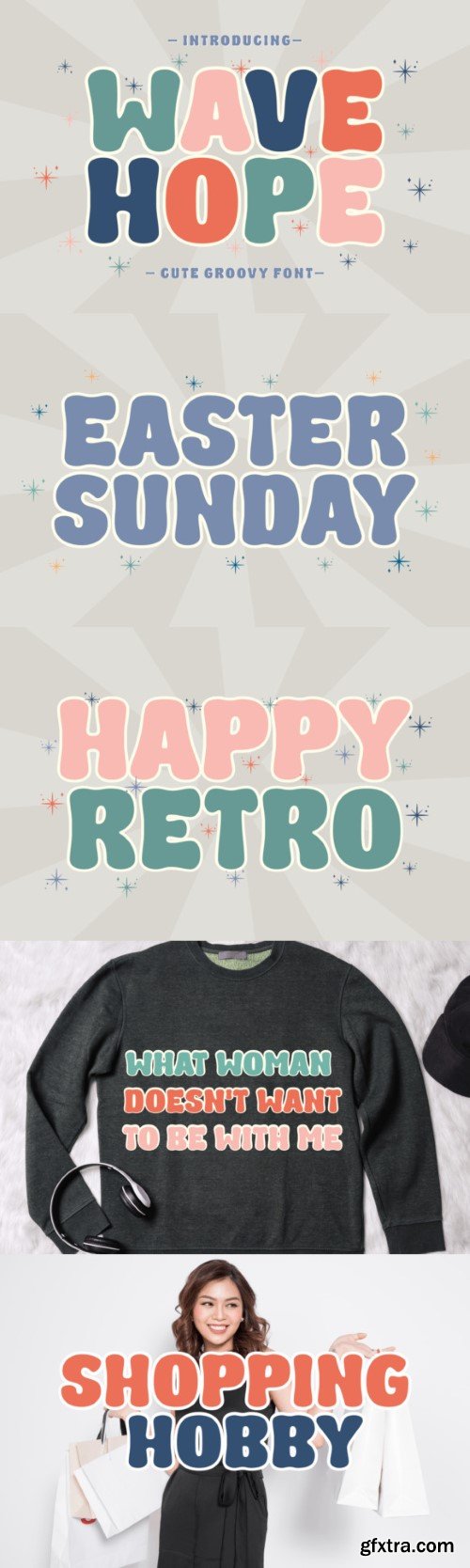
波Hope字体
We are proud to present a wide range of fonts that will bring a unique visual charm to your designs. From Display, Cute, Accent, Apparel, to Authentic styles, our collection offers something for every project. Whether you are looking to create captivating book covers or establish a strong brand identity, our Clean, Cover, and Branding options are perfect choices. Elevate your greeting cards and logos with our fonts, or make a statement with our Packaging and Quote styles. For a more laid-back feel, our Rounded, Smooth, and T-Shirt varieties are ideal. Additionally, our 7ntypes and Multilingual Support ensure that all users' diverse needs are met.